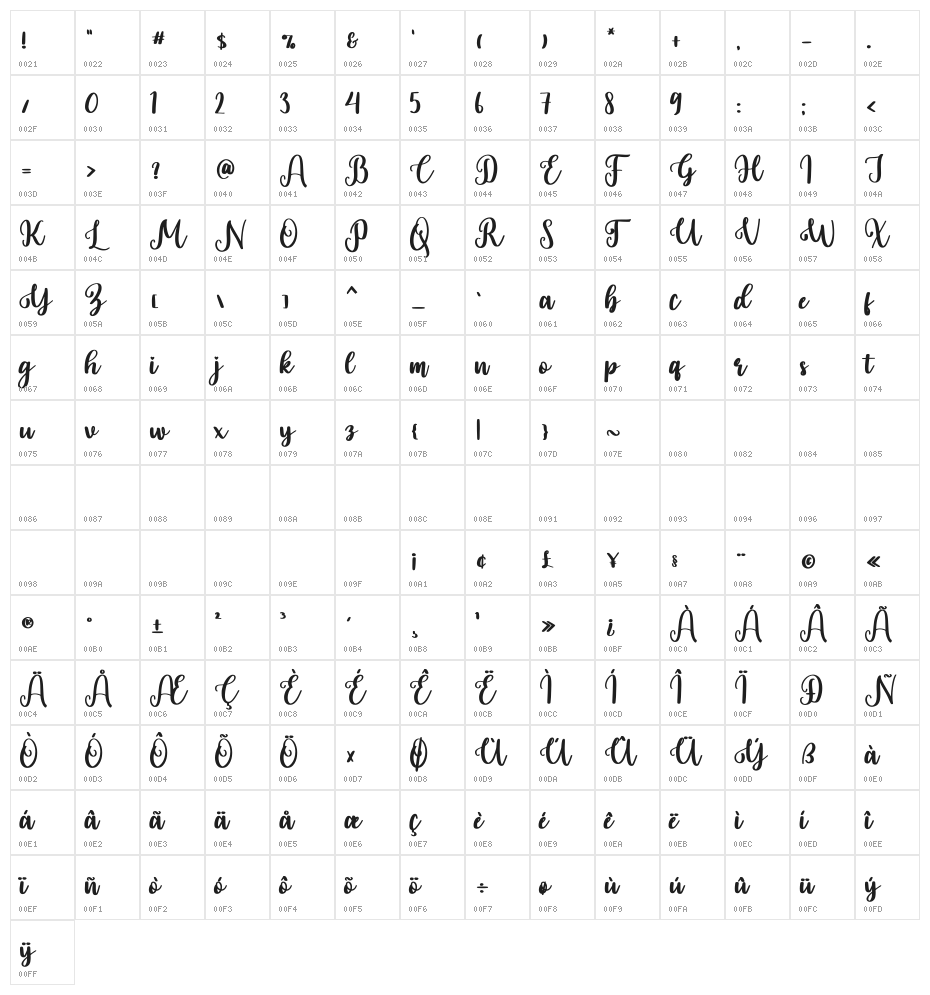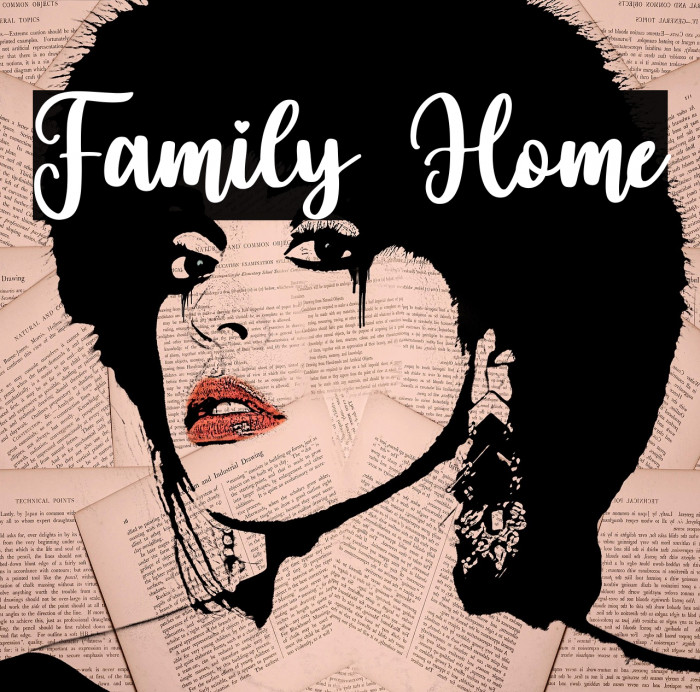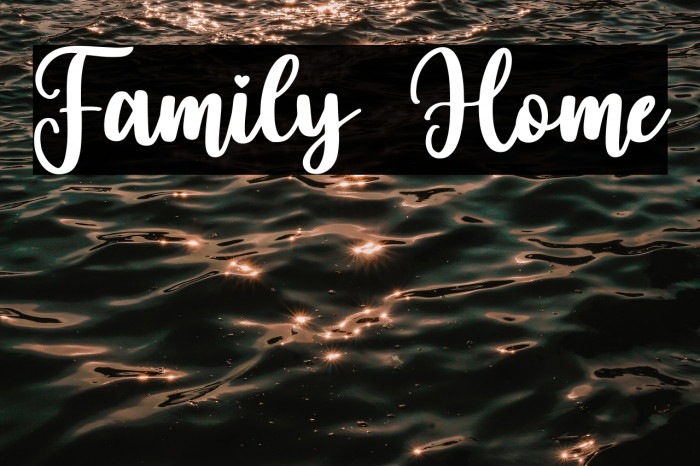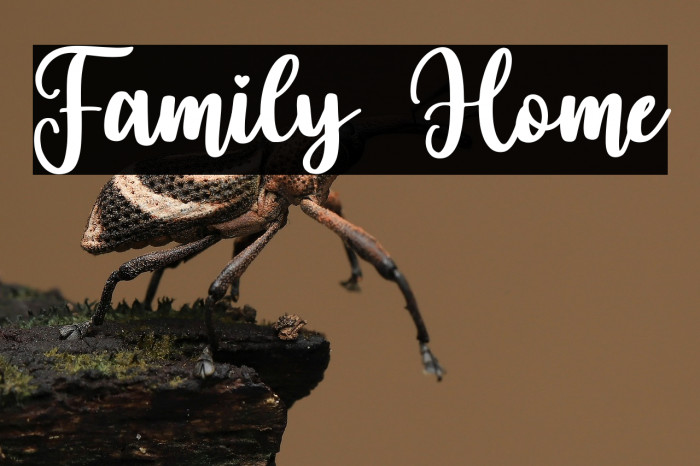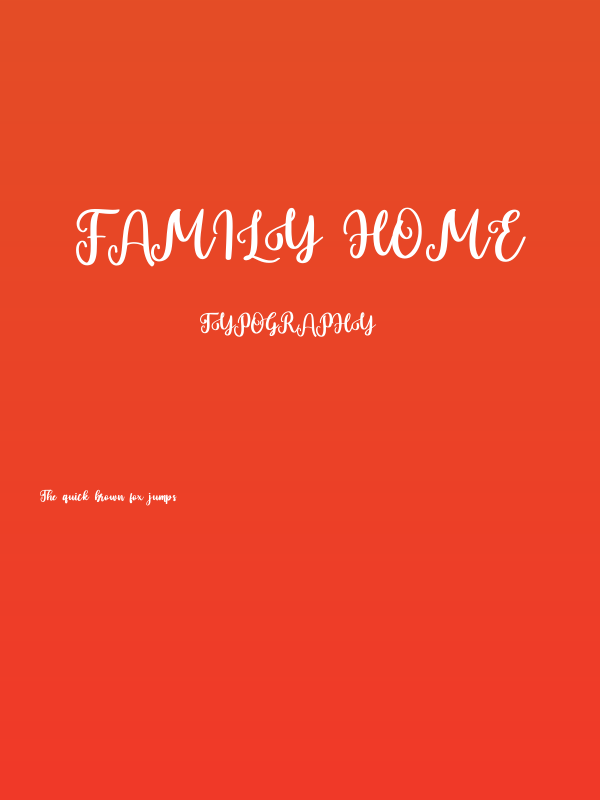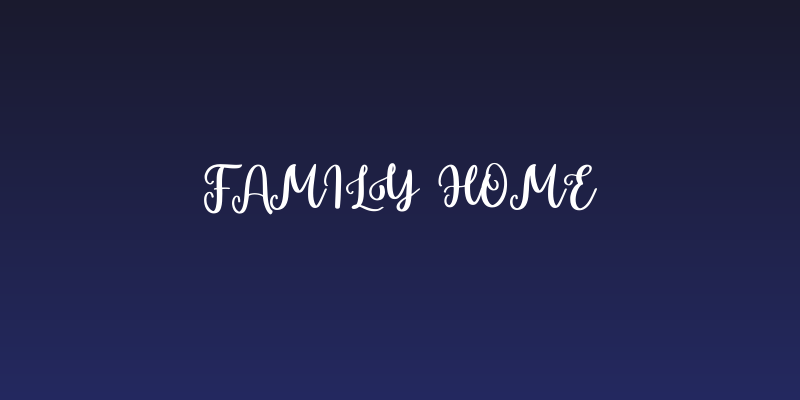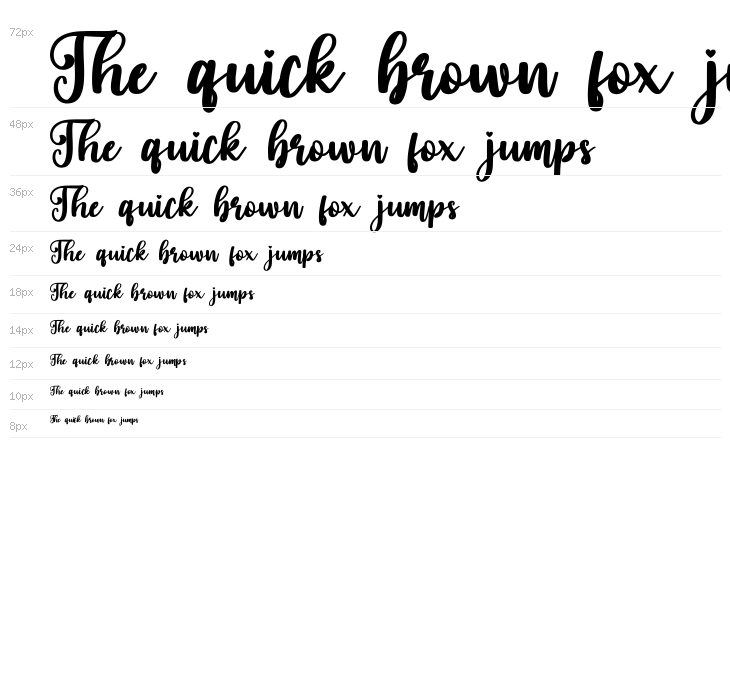
Family Home Font
Family Home Description
This font features a playful and elegant script style, characterized by its flowing, cursive letterforms. The uppercase letters are ornate with smooth curves and loops, giving a sense of sophistication and charm. The lowercase letters maintain a consistent style, with some letters featuring unique flourishes that add to the font's decorative appeal. The numbers are bold and clear, complementing the overall style with a touch of simplicity. Special characters are designed to match the script's aesthetic, ensuring a cohesive look across all text elements. This font is ideal for projects that require a personal, handwritten touch, such as invitations, greeting cards, and branding materials.
| Proposed Projects | Ideal for invitations, greeting cards, branding materials, and decorative text. |